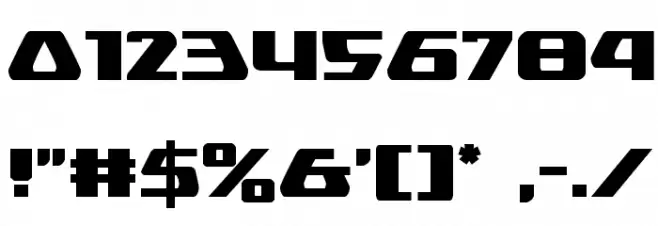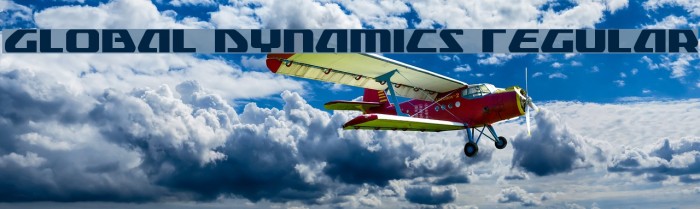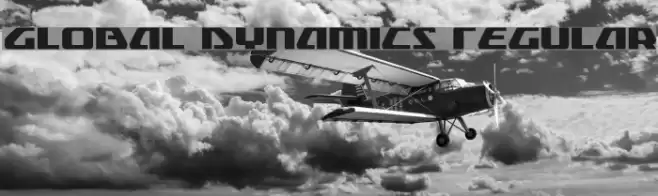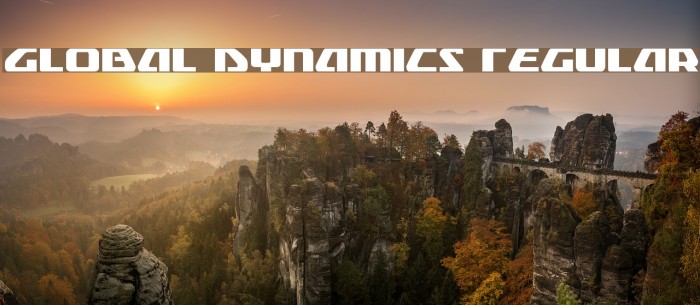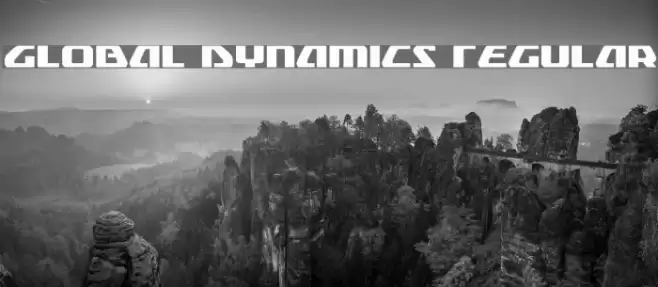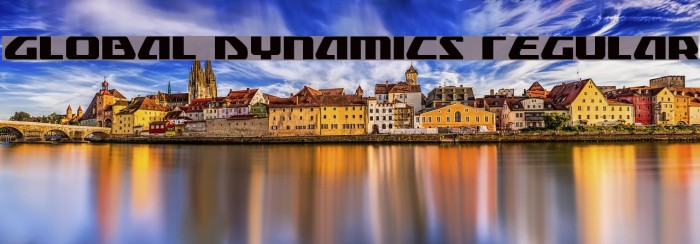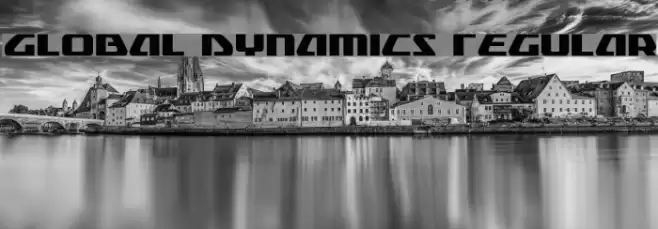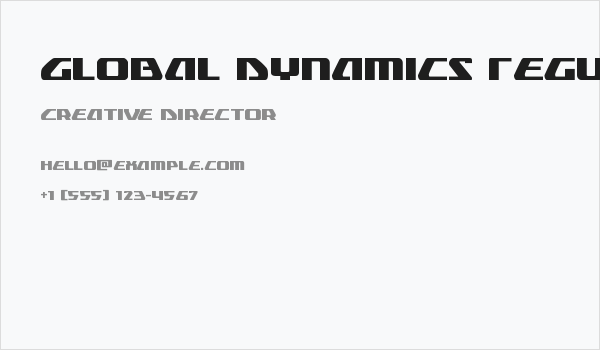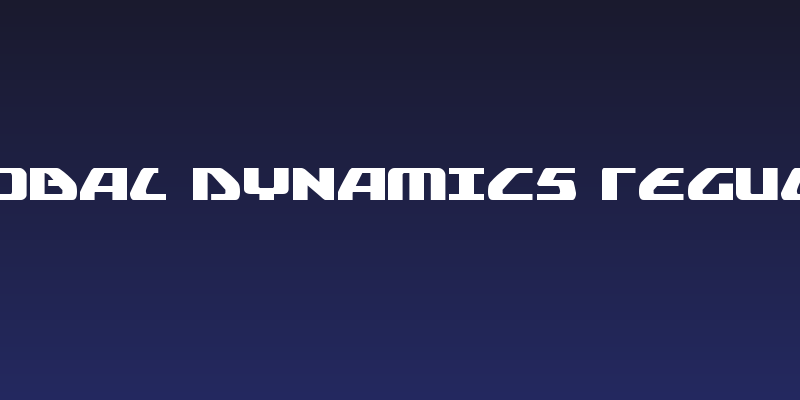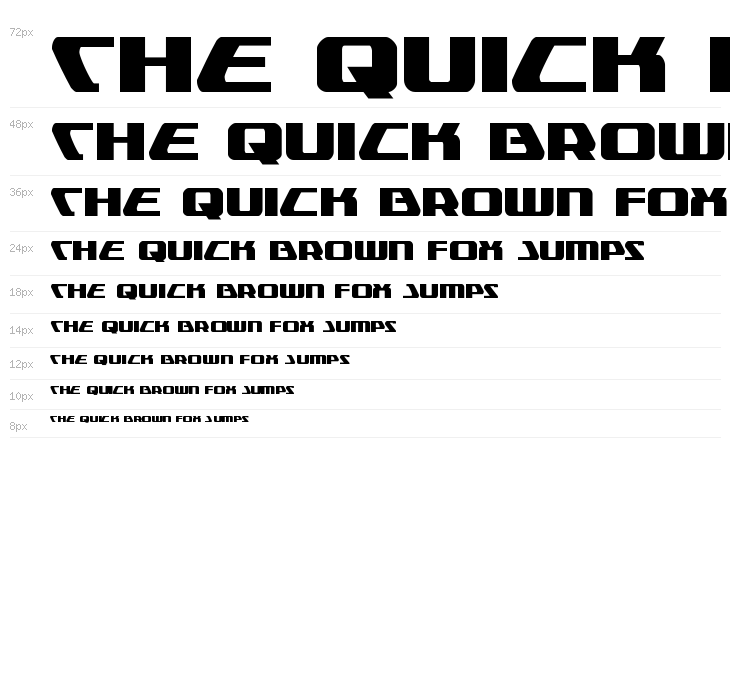
Global Dynamics Regular Font
Global Dynamics Regular Description
This font features a bold, futuristic design with geometric shapes and sharp angles. The characters are constructed with a strong emphasis on horizontal and vertical lines, creating a sense of stability and modernity. The uppercase and lowercase letters maintain a consistent style, with some letters incorporating unique cut-out sections that add to the font's dynamic appearance. The numerals and special characters follow the same design principles, ensuring uniformity across all glyphs. This font is ideal for projects that require a contemporary and bold aesthetic.